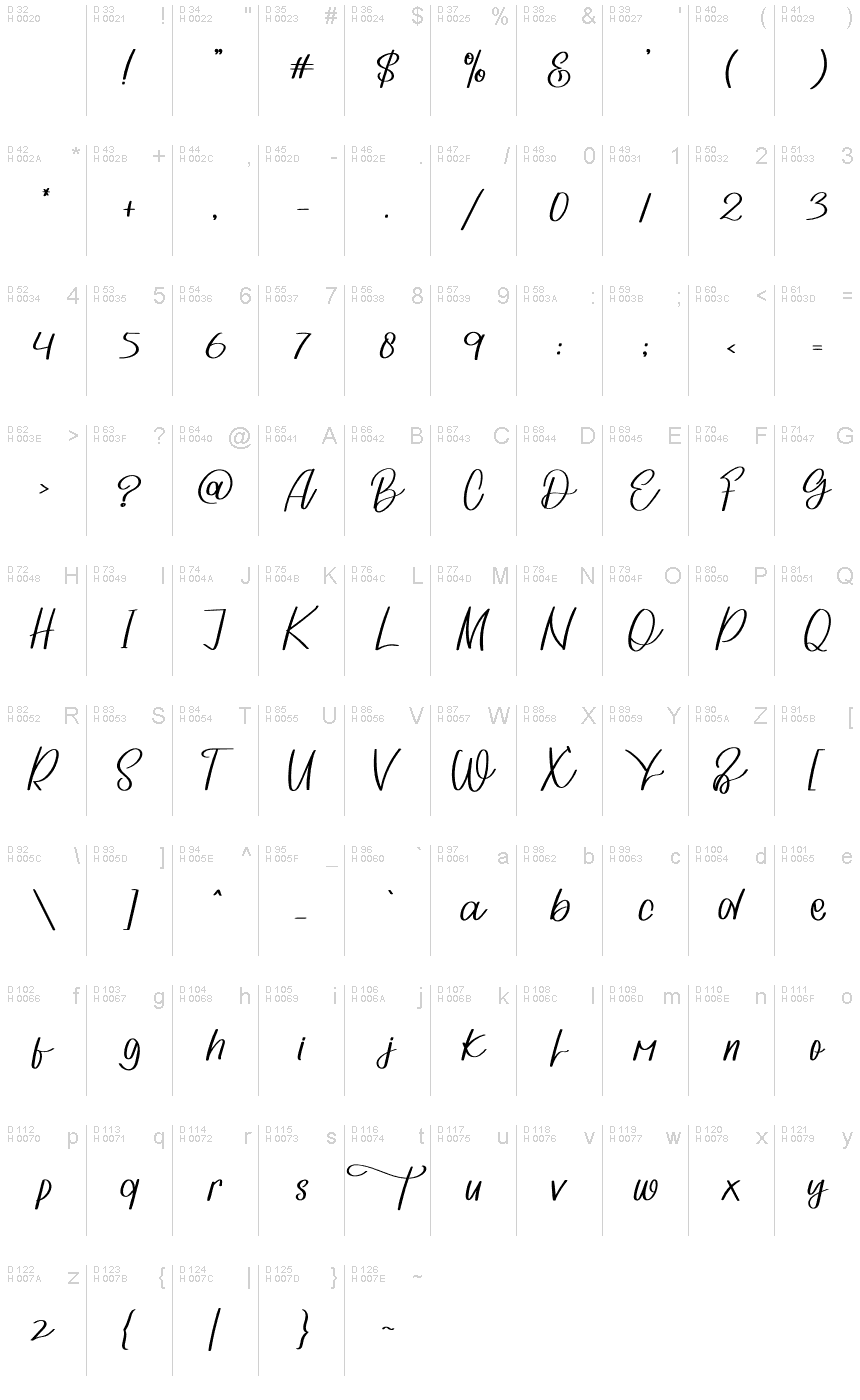
Kikio
Kikio, a light script font designed by Inermedia Studio, is perfect for handwritten projects. Its unique style makes it suitable for logos, invitations, and titles.